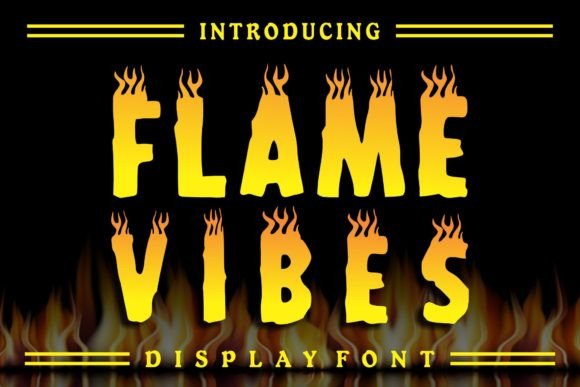
Introducing Flame Vibes Font, a captivating and fiery display font that will ignite your designs with passion and vibrancy. Inspired by the untamed energy of fire, this font exudes a mesmerizing aura that will leave a lasting impression on your audience. Its bold and dynamic strokes command attention, while its carefully crafted details add a touch of sophistication.
Unleash the transformative power of Flame Vibes Font and elevate your creative projects to new heights. Whether you're designing logos, posters, website banners, or eye-catching social media graphics, this font will inject a burst of energy and originality into your work. Witness how its fiery essence captivates your audience, leaving them spellbound and eager for more.
With Flame Vibes Font, you'll have the creative freedom to explore a world of endless possibilities. Its versatility knows no bounds, making it the perfect choice for a wide range of design projects. From bold and dramatic headlines that demand attention to elegant and stylish body text that invites readers to delve deeper, this font will add an unforgettable touch to every design.
Flame Vibes Font is more than just a collection of letters; it's an artistic expression that will set your designs apart from the ordinary. Its fiery personality and captivating charm will draw your audience in, leaving them mesmerized by the beauty and power of your creations.
Embrace the fiery spirit of Flame Vibes Font and ignite your imagination. Let its vibrant energy fuel your creativity and produce designs that leave a lasting impact. Experience the transformative power of this font and witness the magic unfold as your designs come to life with passion, energy, and inspiration.